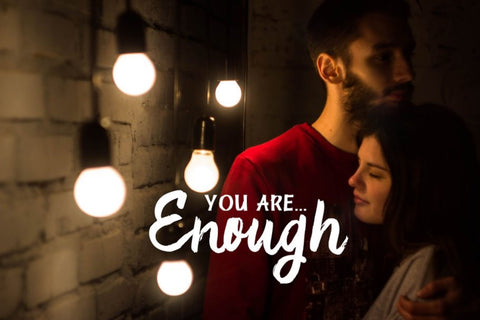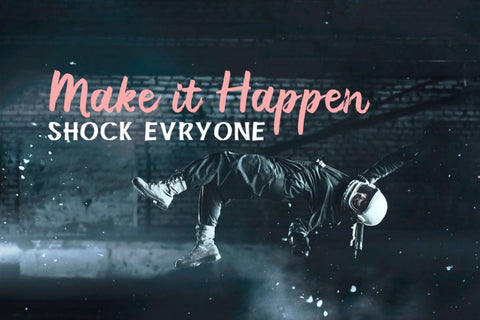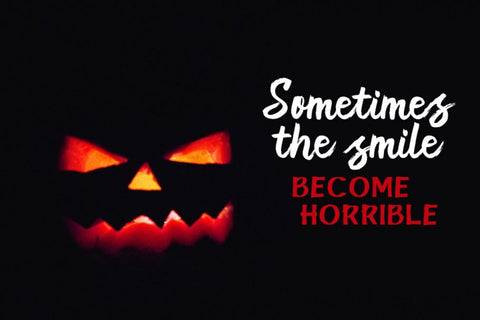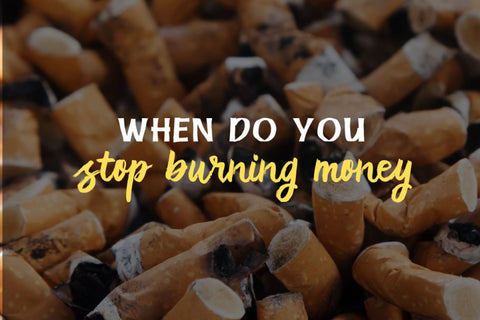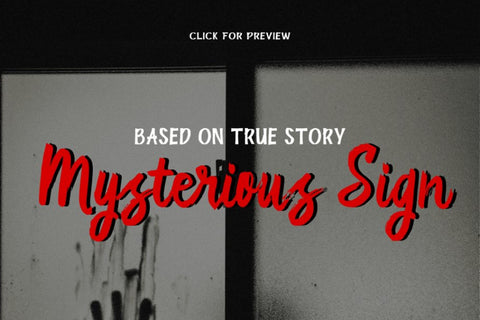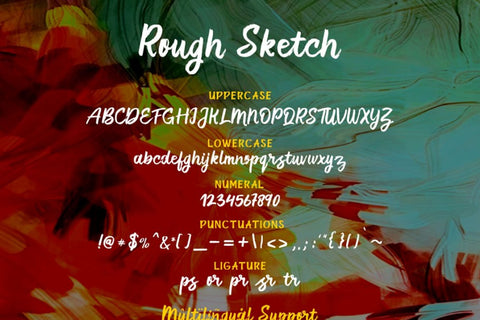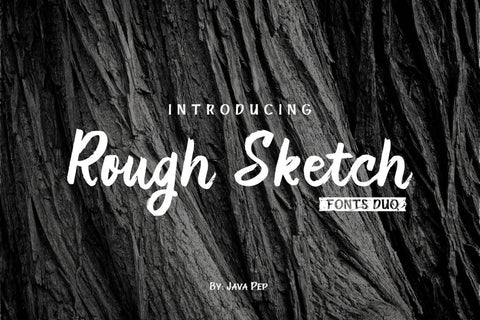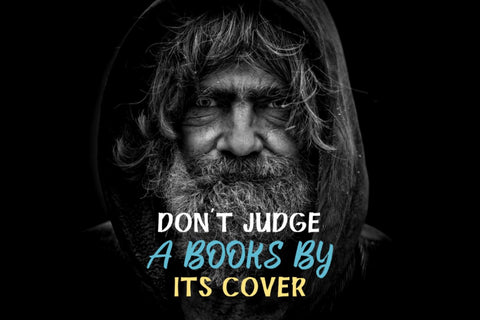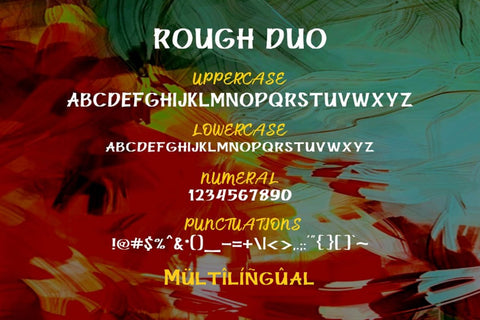
Rough Sketch - fonts duo
Introducing Rough Sketch fonts duo. Rough Sketch is unique font not like regular font in commonly. This font have caracther like the name "rough" but yet elegant. Rough Sketch suitable use for stand out and contradiction themes. This font also elegent for logo, web subttile, poster, quote, book or magazine cover, poster etc.
- Perfect collaboration of Rough Sketch and Roug Duo. You can get two font that always well-suited to collaborate in your design or project so this font complete each other.
- Multilingual Support and ligature set. This font is already for multilingual languange (Rough Sketch) like Italian, French, Spain, Danish, Czech, Portuguese, Hungarian, Irish, English, Finnish, Norwegian, Polish etc or contact me if you need to add your language. Ligatures is two or more of letters are joined as a single font like or, sr, pr, and etc.